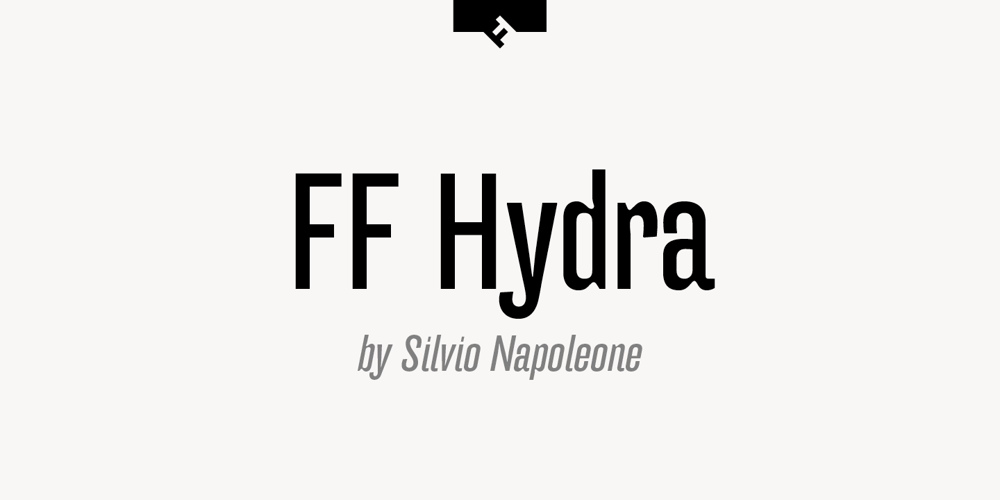
FF Hydra Font Family was designed by Silvio Napoleone and published by FontFont. FF Hydra contains 20 styles and family package options. Canadian type designer Silvio Napoleone created this sans FontFont in 2004. The family has 20 weights, ranging from Light to Black in Normal and Extended (including italics) and is ideally suited for book text, editorial and publishing, logo, branding and creative industries as well as small text. FF Hydra provides advanced typographical support with features such as ligatures, alternate characters, case-sensitive forms, fractions, and super- and subscript characters. It comes with a complete range of figure set options – oldstyle and lining figures, each in tabular and proportional widths.